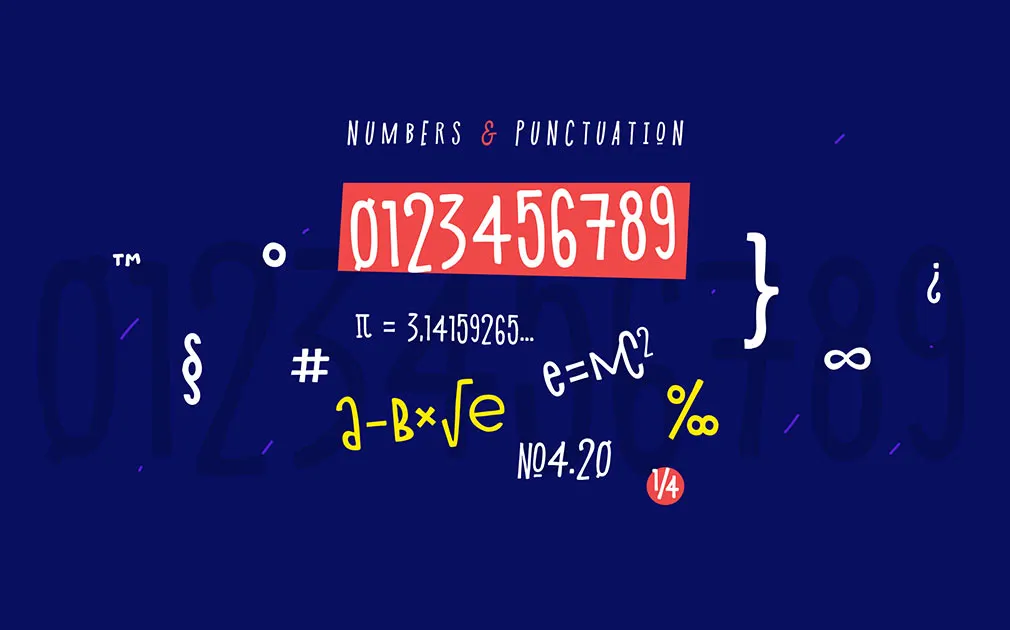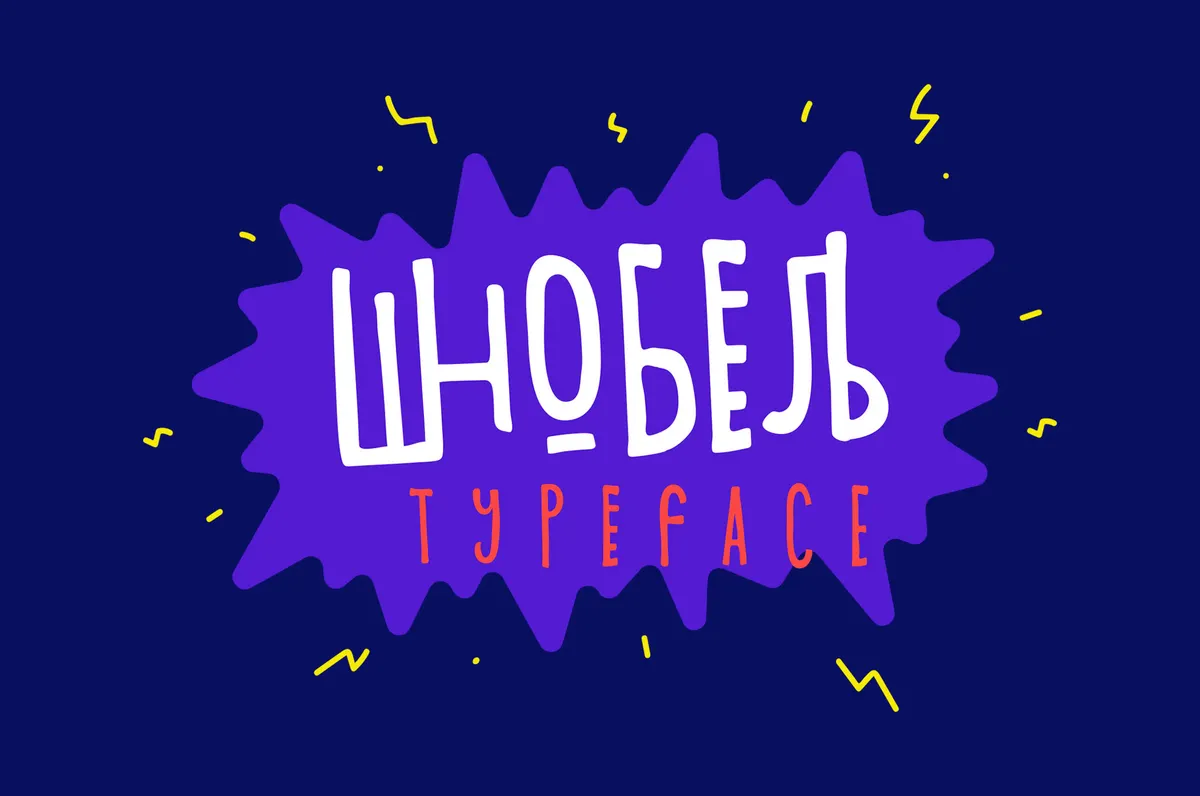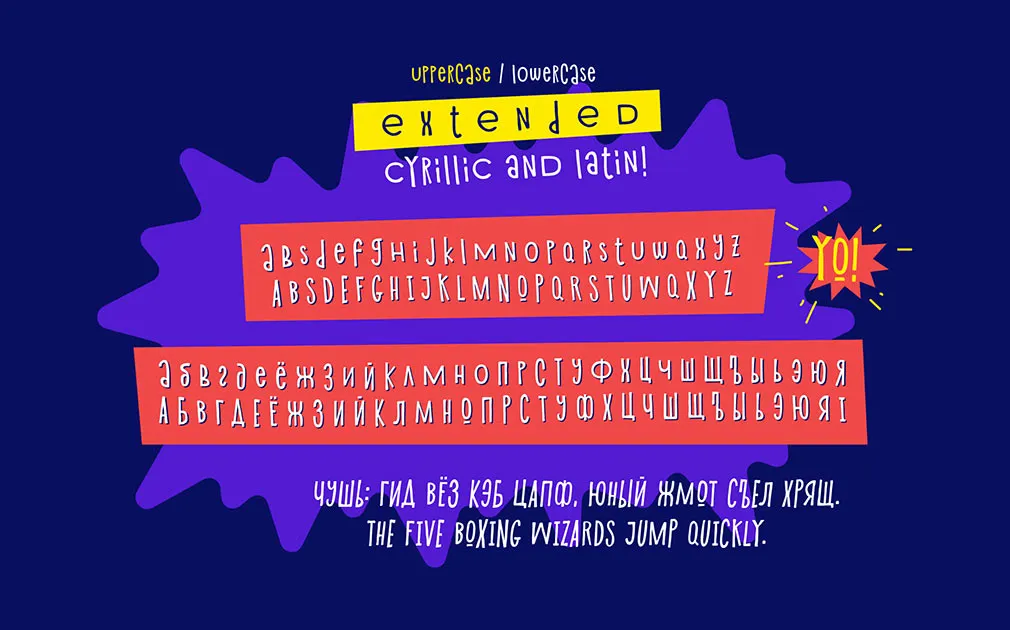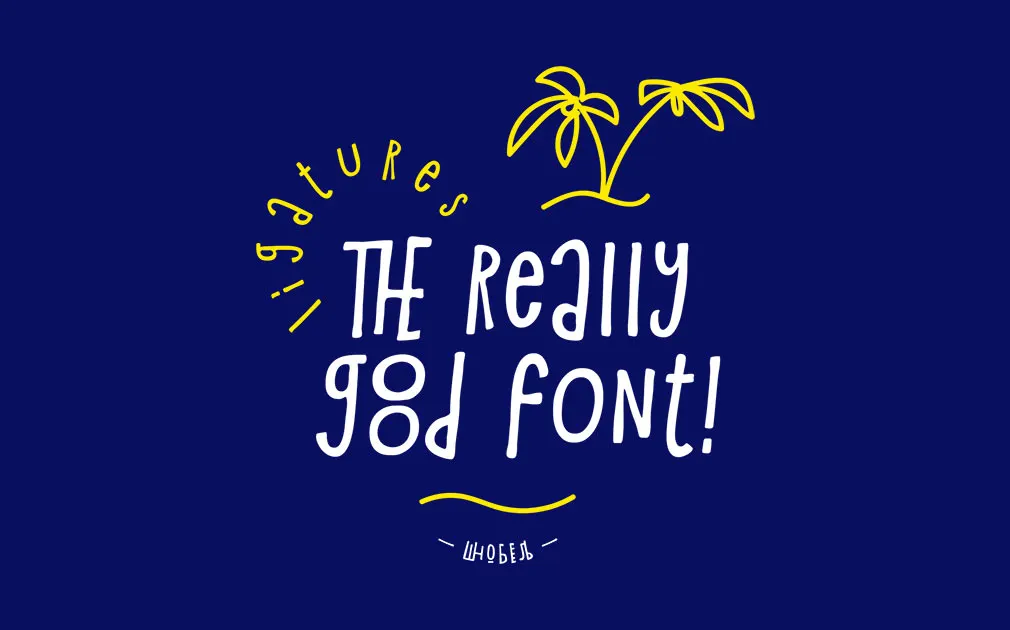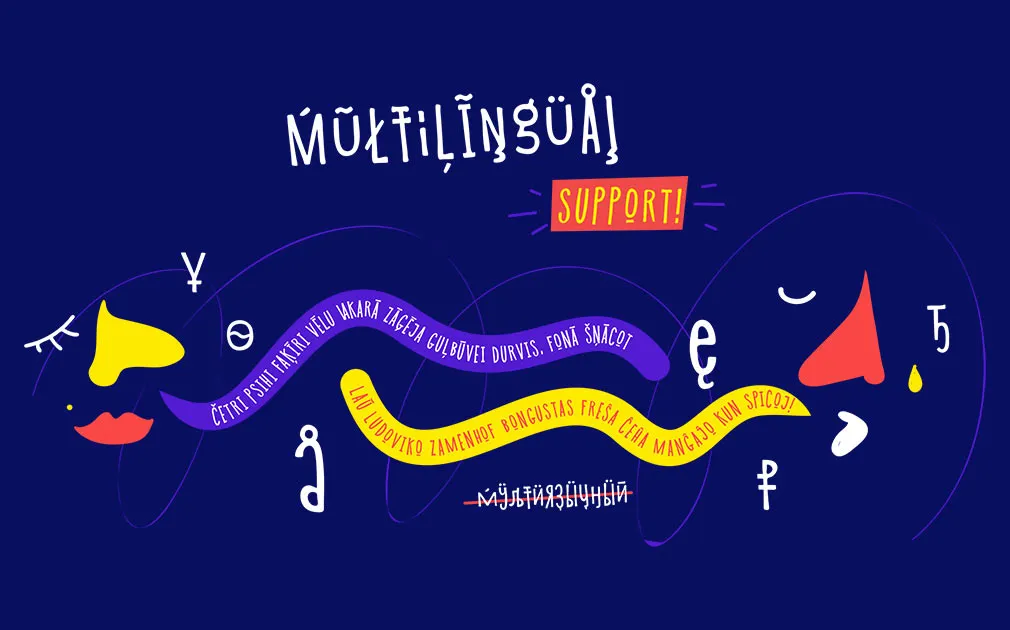
Shnobel Display Typeface
The frantic typeface, breaking into your life today, is a merge of odd, crazy and extraordinary forms! Such an emotional mixture, charging with energy any creative design project.
Such an odd name came from a Russian slang word for a funny big nose, expressing, practically, the focal point and concept for this font creative absurdity. Multilingual, uppercase and lowercase, 600+ glifs in numerous formats for a comfortable workflow. Create funny posters, cards, invitations, commercials, apparel prints, and anything Shnobel will inspire you for!